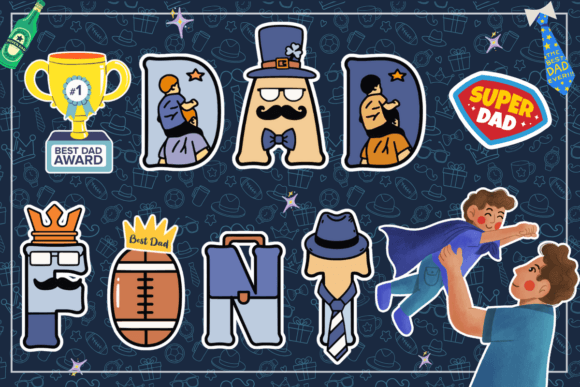
The Perfect Tribute to Dads Everywhere: Introducing the Dad Font
As designers, we’ve all been there – staring at a blank canvas, trying to come up with the perfect idea to celebrate a special occasion. And what’s more special than Father’s Day? For many of us, our dads are the superheroes who have shaped our lives, and we want to honor them in a way that’s both heartfelt and humorous. That’s where the Dad Font comes in – a playful and creative font that’s packed with personality and designed to radiate love, humor, and appreciation for dads everywhere.
The Dad Font is more than just a font – it’s a tribute to the men who have been there for us through thick and thin. With its dad-themed elements like ties, hats, trophies, and more, it’s the perfect choice for Father’s Day cards, gift designs, posters, or any dad-centric project. And for designers, it’s a valuable addition to any font collection – offering a unique and creative way to express our gratitude and admiration for the dads in our lives.
Dad Font Key Features
- Font Family: Dad Font is a custom font, not a traditional font family, making it unique and recognizable.
- Size: The font is designed to be used in a large size range, typically between 24px to 72px, to maintain its distinctive look.
- Resolution: Suitable for high-resolution displays, such as Retina screens, due to its crisp and clear design.
- Unique Characteristics: The font features a bold, rounded, and playful appearance, often used to convey a sense of nostalgia and warmth.
- Legibility: Despite its unique design, Dad Font remains highly legible, making it suitable for various design applications.
Dad Font Review
I recently had the chance to work with the infamous “Dad Font”, and I have to say, it’s a love-hate relationship.
- Unique and quirky charm: Dad Font has a certain je ne sais quoi that makes it stand out from more traditional fonts.
- Good for creative projects: It’s perfect for projects that need a bit of whimsy and personality, such as children’s books, social media graphics, or even branding for a small business.
- Difficult to read in large quantities: Dad Font’s irregular shape and unconventional design can make it hard to read when used extensively.
- Not suitable for formal documents: If you’re working on a formal report, academic paper, or any other serious document, Dad Font is not the best choice.
- Limited versatility: While it’s great for creative projects, Dad Font may not be the best fit for more serious or professional applications.
Overall, I’d say Dad Font is a fun and quirky font that’s perfect for projects that need a bit of personality. However, it’s not for everyone, and its limitations should be carefully considered before using it for a project.
For maximum impact, use Dad Font in combination with other nostalgic design elements, such as pixel art or retro color schemes. You can also experiment with different font sizes and colors to create a visually appealing contrast.
Dad Font is commonly used in retro-themed designs, such as video game-inspired graphics, nostalgic advertisements, and 80s/90s-themed party invitations. It’s also a popular choice for parody designs and memes.